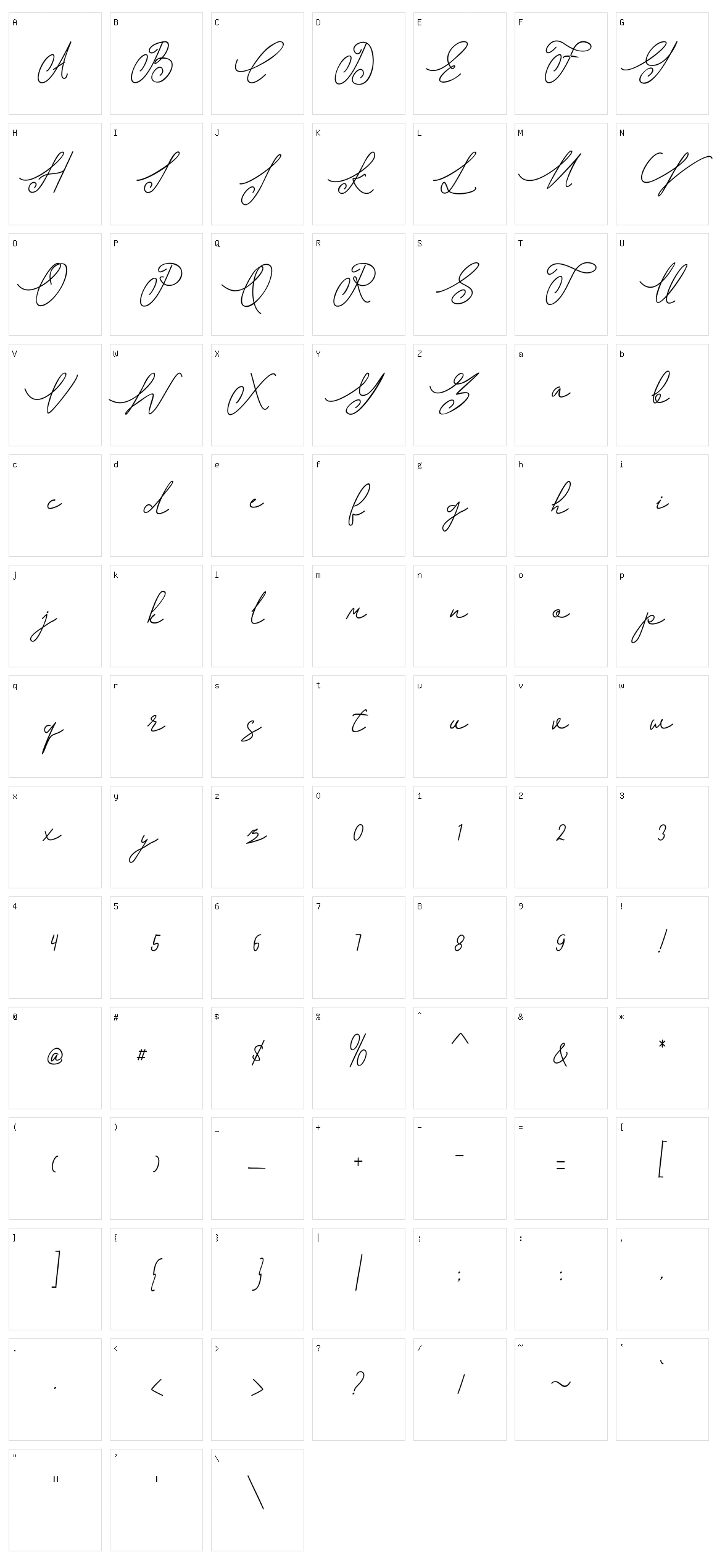
The free font Shangrela is carefully designed by Halim Antoni, showcasing a thoughtful balance of creativity and usability and falls under the Script font style. When you download the ZIP file, it contains only 80.4 KB of font files, making it lightweight and quick to download. Please review the license details below to understand permitted usage and distribution rights. If license information is not available, we recommend using this font for personal projects only or contacting the author directly for commercial usage permissions.